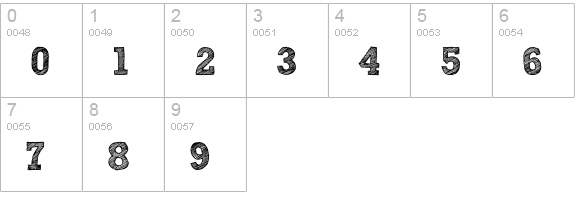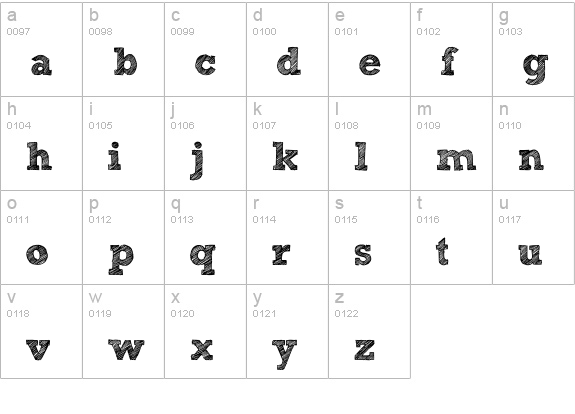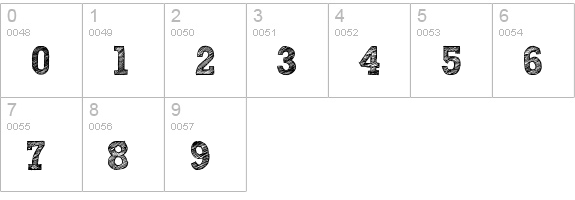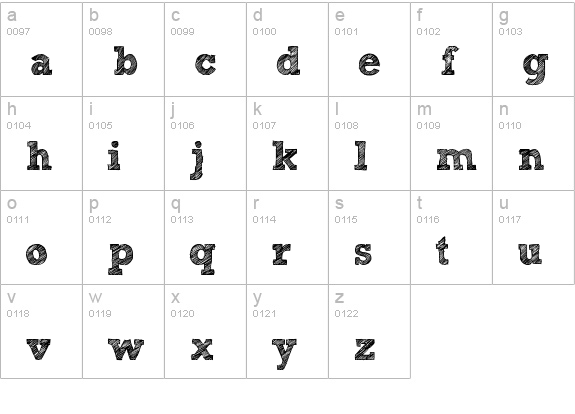
Sketch Rockwell is a bold and rugged font that exudes a sense of strength and stability. Its sturdy letterforms, with rough edges and a hand-drawn appearance, give it a unique aesthetic that is both modern and timeless. This versatile typeface is perfect for creating eye-catching headlines, signage, and branding materials. The best part? Sketch Rockwell is available for free download at FontsMarket.com. This means you can easily access this striking font and incorporate it into your projects without any cost. Whether you're designing a poster, logo, or website, Sketch Rockwell is sure to make a bold statement and captivate your audience. Download it today and unleash your creativity with this powerful and dynamic typeface.